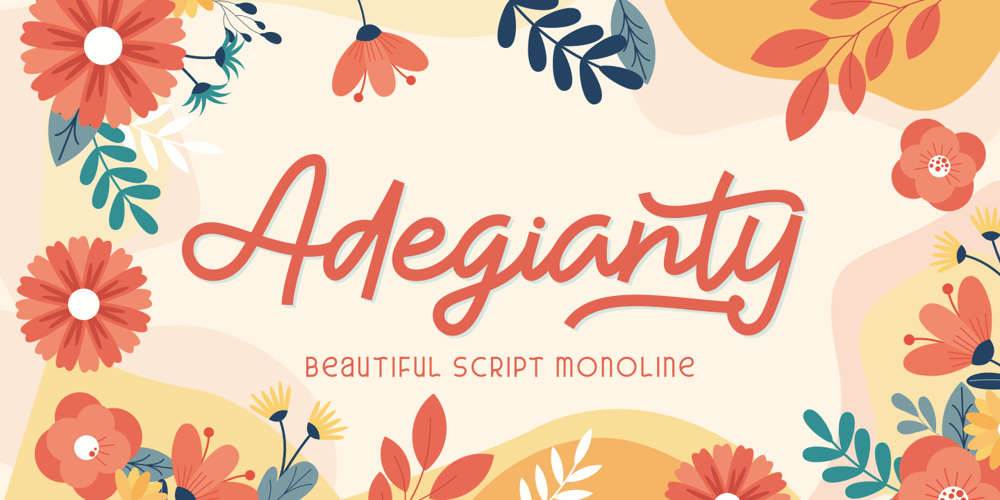
Adegianty Font Family was designed by Riyadh Abuhafs and published by Awan Senja. Adegianty contains 1 styles and family package options. Adegianty feels equally charming and elegant. It looks stunning on wedding invitations, thank you cards, quotes, greeting cards, logos, business cards and every other design which needs a handwritten touch.This font is PUA encoded which means you can access all of the glyphs and swashes with ease! It features a varying baseline, smooth lines, gorgeous glyphs and stunning alternates.